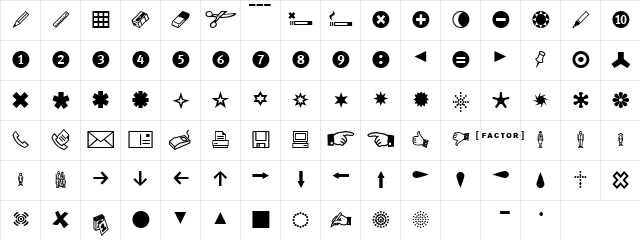
Dingbest Web Regular
| Designer | Johannes Erler and FSI |
Design Context for Dingbest Web Typeface
Dingbest Web is a composed and adaptable typeface that performs quietly and consistently across a wide range of design contexts.